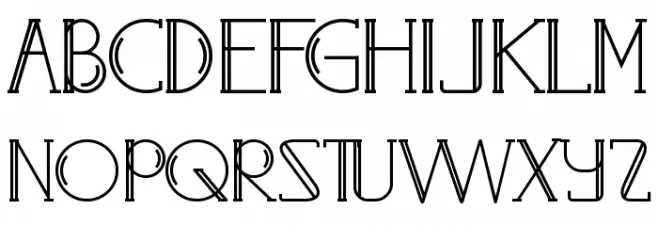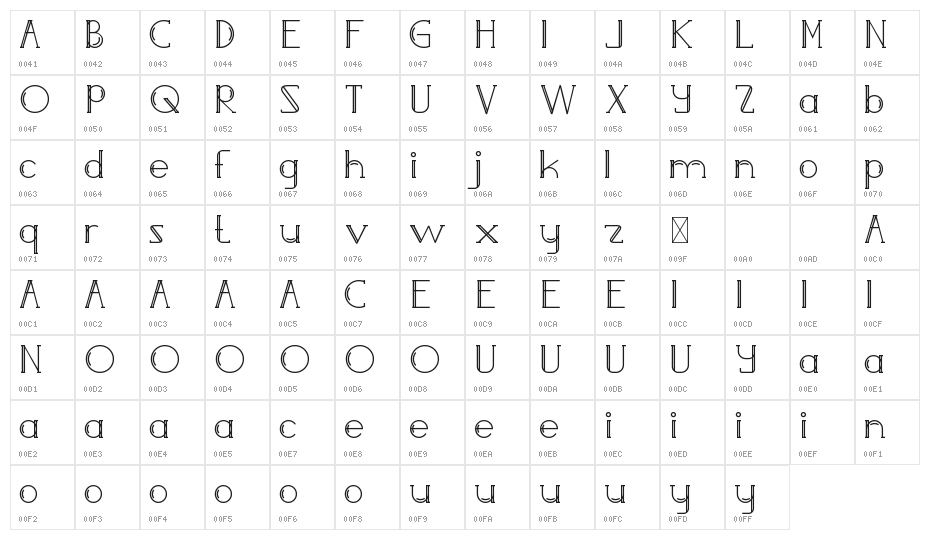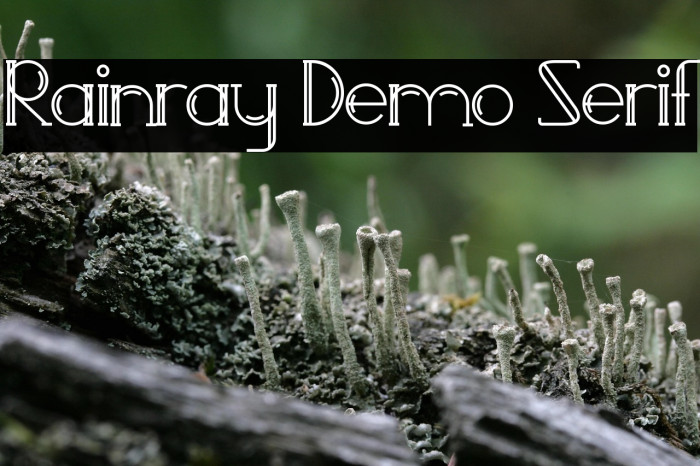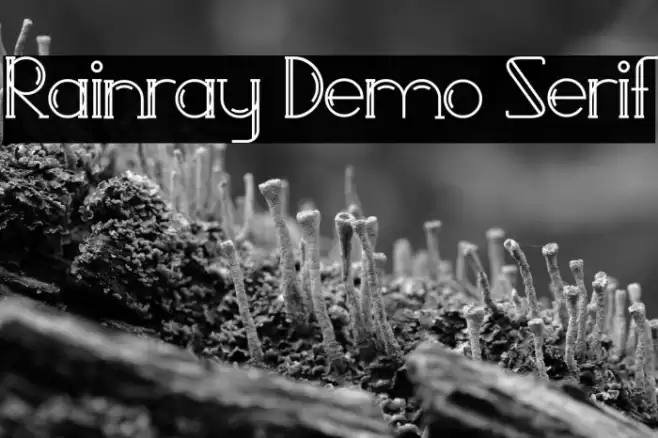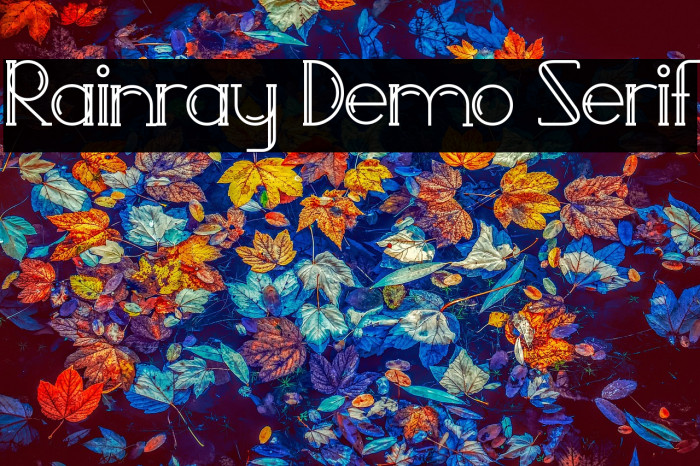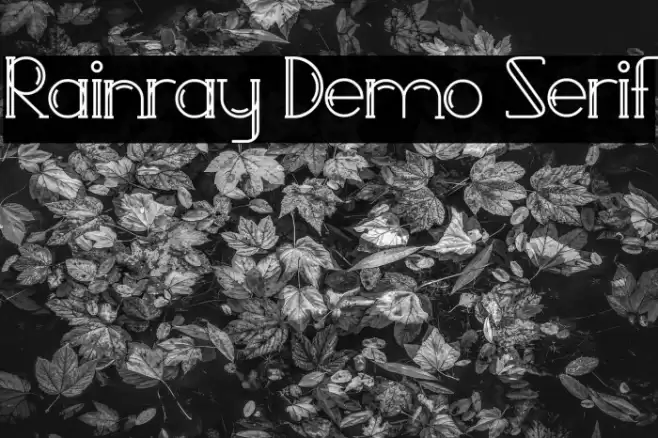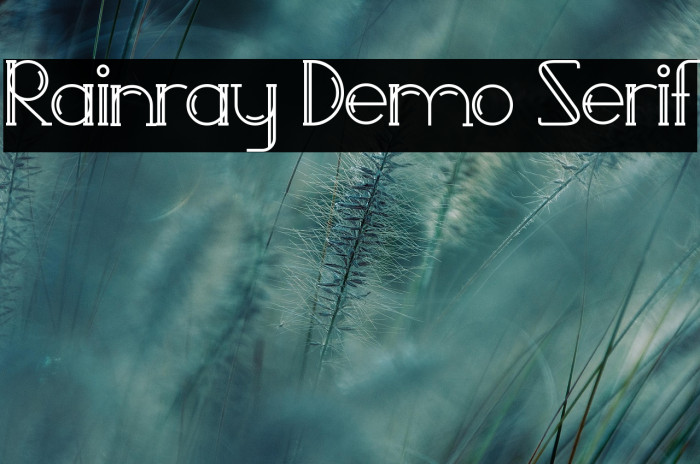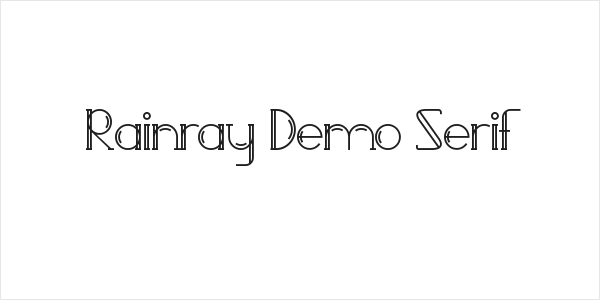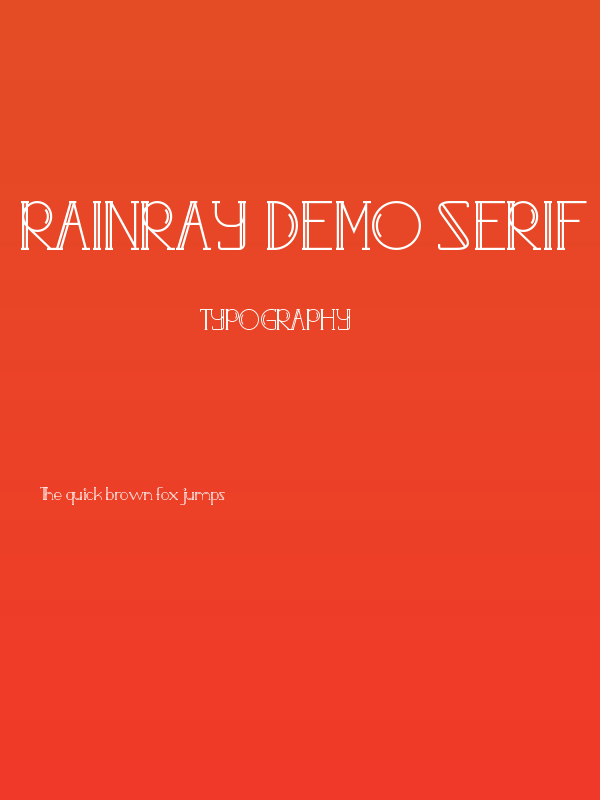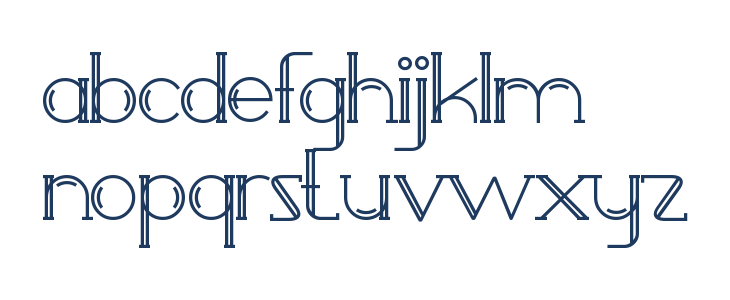
Rainray Demo Serif Font
Rainray Demo Serif Description
This font features a unique blend of geometric and decorative elements, characterized by its thin, elongated strokes and intricate detailing. The uppercase letters exhibit a modern, architectural style with sharp angles and clean lines, while the lowercase letters maintain a consistent flow with subtle curves. The font's design is both elegant and contemporary, making it suitable for a variety of creative applications. Its distinct appearance is enhanced by the consistent stroke width, which adds to its sophisticated and stylish look.